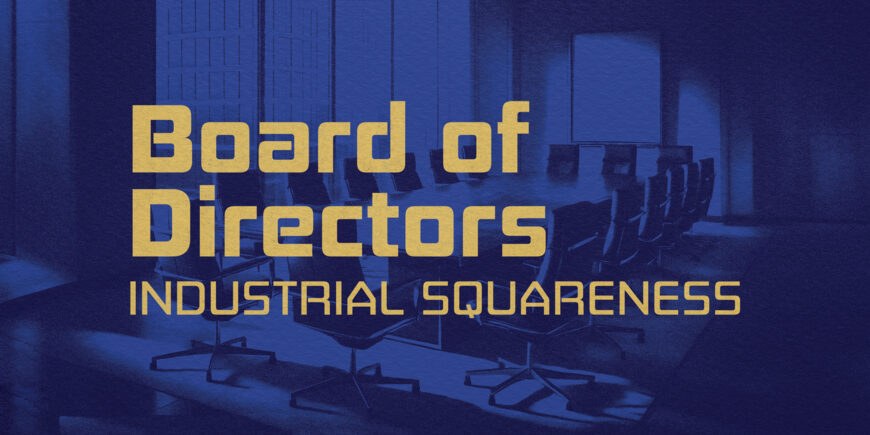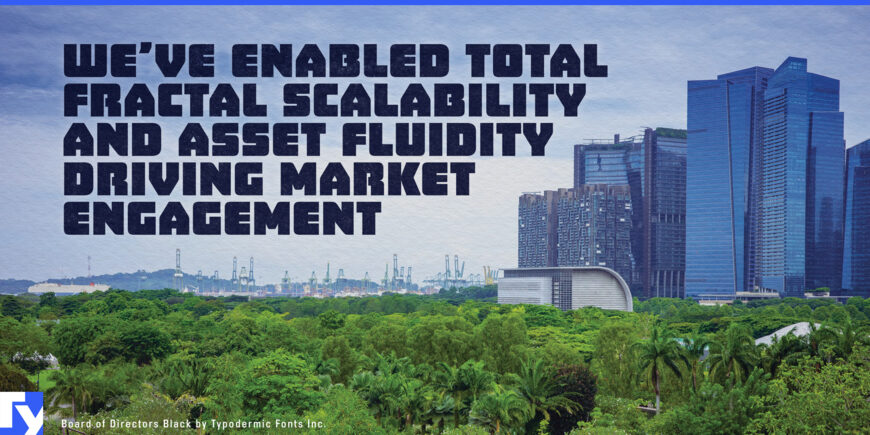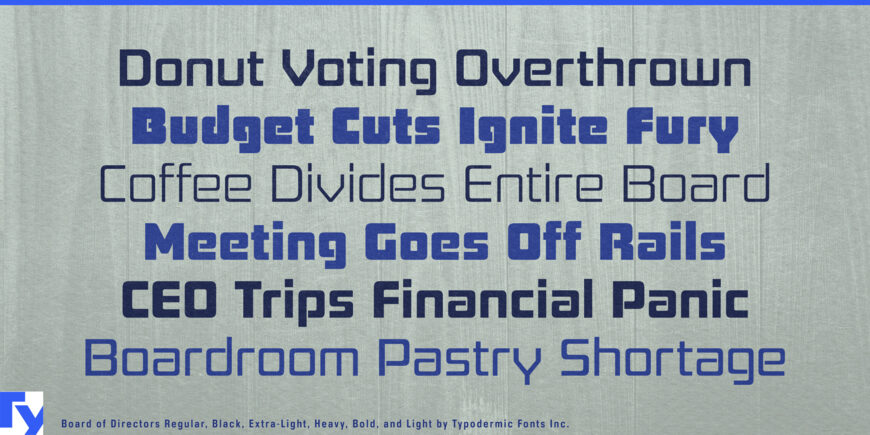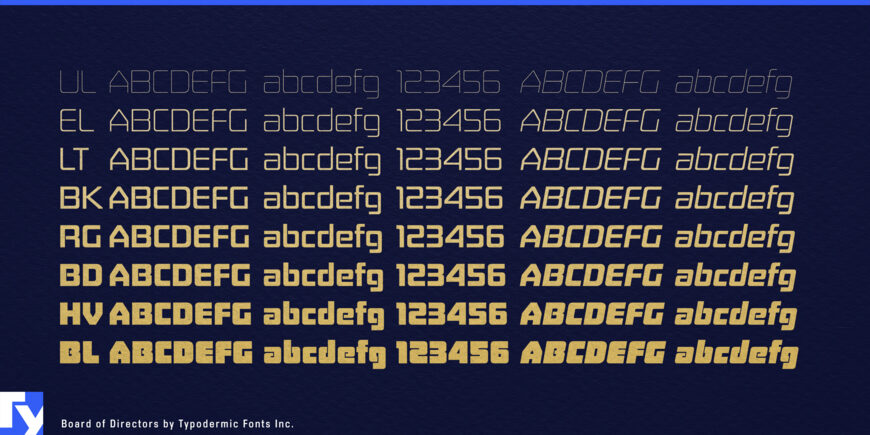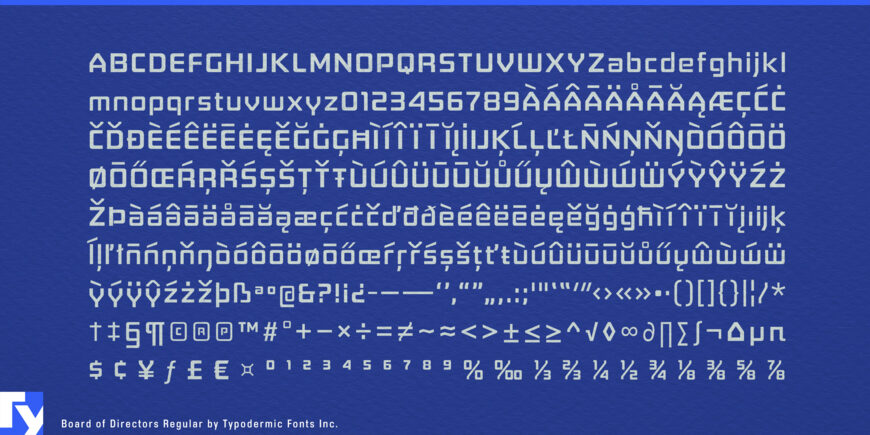
Board of Directors takes cues from the sharp geometry of 1970s hi-tech logos and the clean efficiency of early dot-matrix and plotter lettering. Its square, industrial build is balanced by a large x-height and carefully curved strokes, giving it unusual clarity for a display-style design.
Distinctive details—like the flat-sided “A” with a peaked top and softened diagonals on letters such as “K” and “X”—keep the forms working smoothly together while preserving their technical edge. Well suited to corporate branding, industrial design, and tech-focused editorial work, Board of Directors brings structure, consistency, and an engineered tone to modern typography.